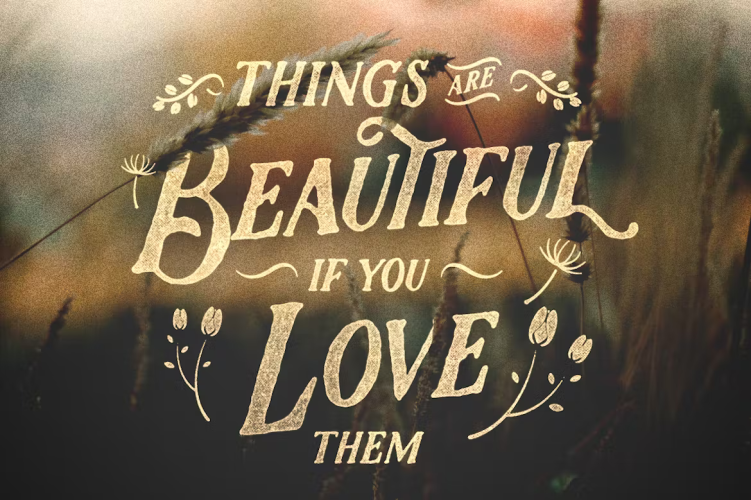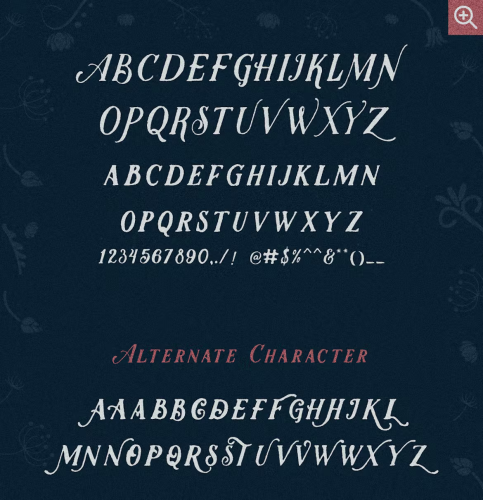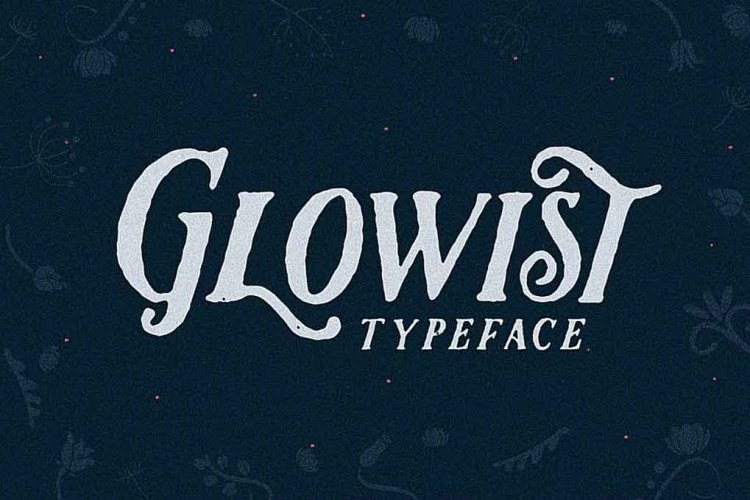
Glowist Font
Introducing our first font This is Glowist typeface is serif font made with hand drawn style to create natural vibe on the artworks.
Glowist comes with alternate characters and ornaments that will provoke your creativity and make it easier to make the awesome work.
This font is suitable for greeting cards, posters, labels, t-shirt design, etc.
Inside this fonts also included Vector ornament as in the display.
Where Glowist Font works best
Reports, white papers and book interiors hold the eye longer when the text face has real serifs; Glowist Font keeps that rhythm without looking old-fashioned.
Food, spirits and cosmetics brands lean on serif wordmarks to suggest age and care. Glowist Font gives that signal at wordmark size.
Set Glowist Font for the body of an award or a diploma and keep the recipient name in a script; the pairing is what makes a document feel official.
What kind of work does Glowist Font suit?
It sits in the Serif Fonts group and reads as display, handwritten, serif, serif fonts. That makes it a candidate wherever those qualities help: headings, packaging, social graphics and brand work. Set it at the size you plan to use before deciding.